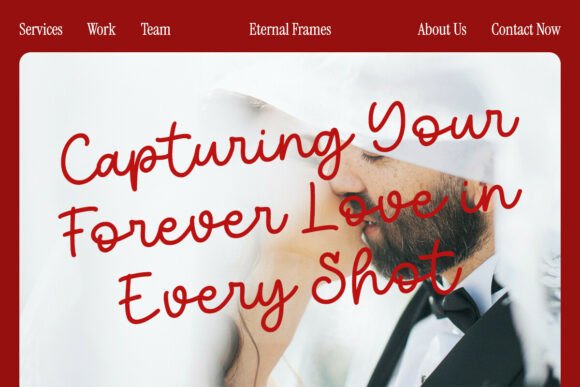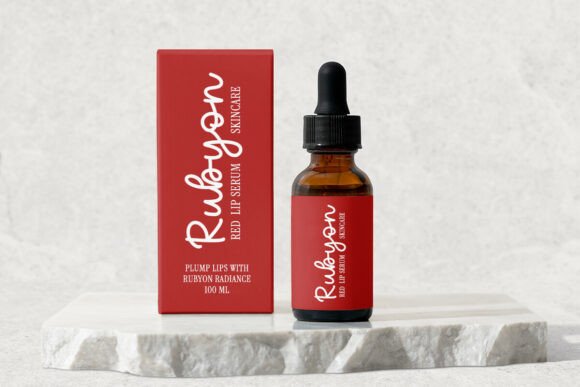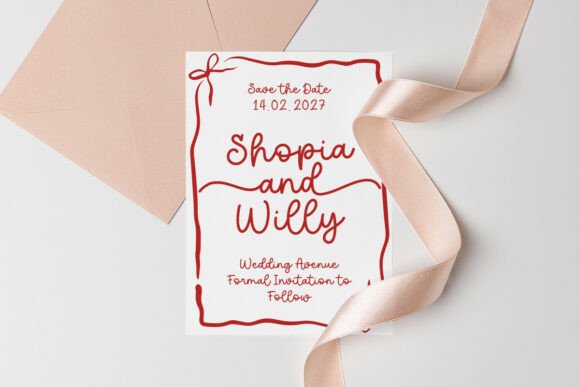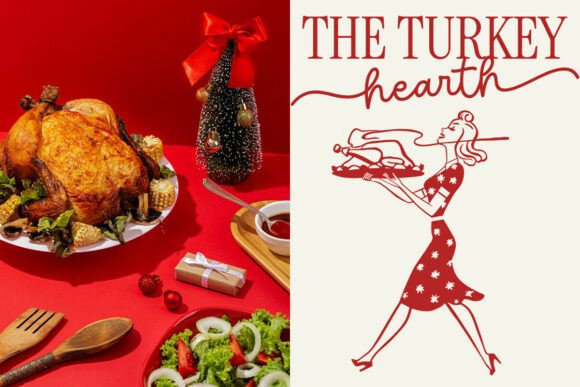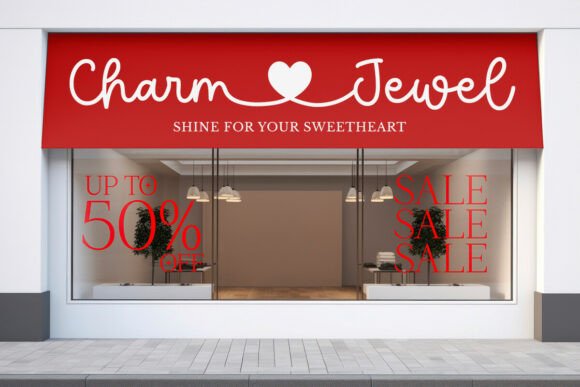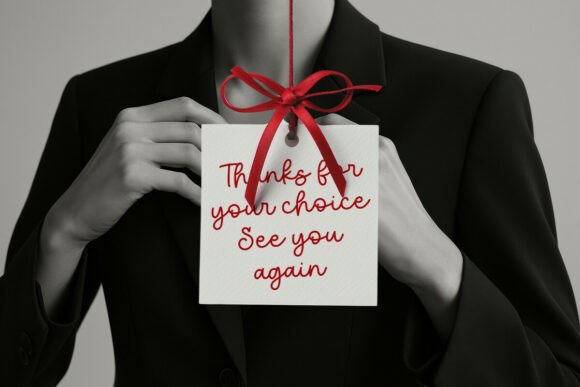
Love at First Sight: The Allure of the I Love You Font
Have you ever stumbled upon a font that instantly captures the essence of your creative vision? For designers and crafters alike, this magical moment is a treasure to behold. It happened to us when we discovered the enchanting I Love You Font, a stunning script font that effortlessly conveys warmth, elegance, and romance. This beautiful font is more than just a typographical choice – it’s an invitation to express the deepest emotions and make every project truly special.
With its exquisite handwriting style, delicate washes, and heart-shaped alternate swashes, the I Love You Font is an ideal choice for designers seeking to add a touch of sophistication and whimsy to their work. Its intricate design and thoughtful ligatures make it perfect for crafting personalized gifts, invitations, and other special projects that demand attention to detail.
- Unique Characteristics: The I Love You Font features a playful, cursive script style with exaggerated letterforms and flourishes, making it ideal for creative and romantic designs.
“I Love You Font” Review
I recently had the chance to work with the “I Love You Font”, and I have to say it’s a sweet addition to any design project. Here’s what I like about it:
- ✨ The font’s playful and cursive nature makes it perfect for adding a touch of whimsy to your designs.
- ✨ The font’s bold and expressive feel works well for headings and titles, grabbing the user’s attention.
- ✨ The font’s versatility makes it suitable for a wide range of projects, from greeting cards to social media graphics.
- ⚠️ The font can be a bit too ornate for some designs, overwhelming the message or content.
- ⚠️ The font may not be the best choice for body text, as it can be difficult to read in smaller sizes.
- ⚠️ The font’s aesthetic may not be to everyone’s taste, so be sure to test it with your target audience.
Overall, I think the “I Love You Font” is a fun and creative option for designers looking to add a touch of personality to their work. While it may not be the best choice for every project, it’s definitely worth considering for the right designs.
Use the I Love You Font for romantic designs, such as Valentine’s Day cards or proposals.
Pair the font with pastel colors and floral patterns for a whimsical look.
Use the font in bold and italic styles to add emphasis to your design.
Wedding invitations and decorations
Valentine’s Day cards and gifts
Love-themed social media graphics